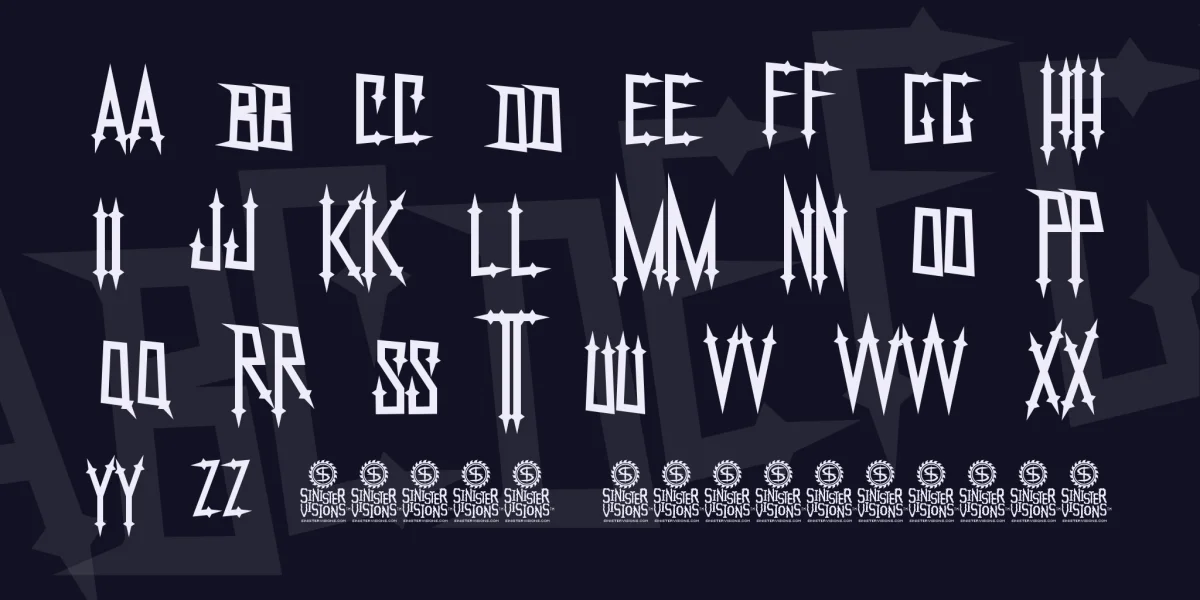
Created 2003 as a potential logo font for Haunted Attraction Magazine (they didn't use it). Later re-purposed for www.sinisterdolls.com (hence the name of the font). Now it's just a weird, creepy font!